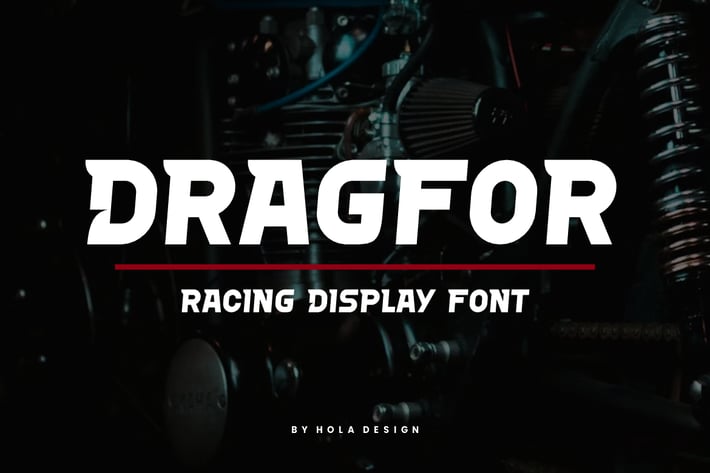
Dragfor - Racing & Speed Font
Dragfor - Racing & Speed Font is unique . Ready to use for your design like labeling, movie sceen, poster, movie title, gigs, album covers, logos, and much more.